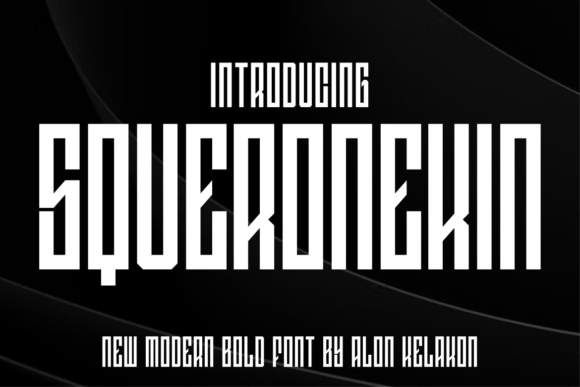
Behold, the Squeronekin font, an exquisite creation destined to transform your digital expressions into captivating works of art. Prepare to be mesmerized as you explore this enchanting display font, meticulously crafted to stir emotions and leave an indelible mark on your audience.
With Squeronekin, your words take on a life of their own, dancing across the screen with grace and elegance. Each letterform is a testament to the artistry of its creator, alonkelakon, who poured their heart and soul into designing this masterpiece. The result is a font that commands attention, leaving your viewers spellbound and eager to delve deeper into your content.
Whether you're crafting a heartfelt love letter, designing an unforgettable invitation, or creating eye-catching social media posts, Squeronekin is your perfect companion. Its versatile nature allows it to adapt seamlessly to any creative endeavor, elevating your projects to new heights of visual appeal.
Imagine the impact of your words when they're adorned with the charm and sophistication of Squeronekin. Your messages will leap off the screen, captivating your audience and leaving them utterly captivated. Let Squeronekin be your secret weapon, transforming ordinary text into extraordinary expressions that resonate with your readers.
The possibilities are truly endless with Squeronekin. Unleash your creativity and watch as your words blossom into breathtaking visuals. Experience the sheer joy of creating with a font that understands the power of emotion and knows how to make your ideas shine.
Squeronekin is more than just a font; it's an invitation to embark on a creative journey where your imagination knows no bounds. Embrace its magic and witness the transformation of your digital creations into captivating masterpieces. Download Squeronekin today and let your words dance with delight.